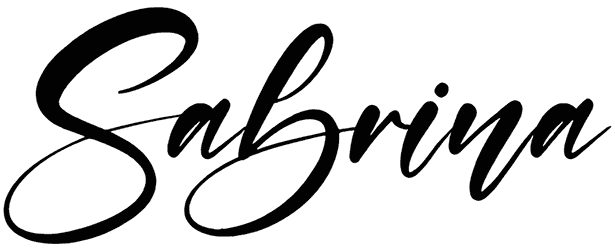
Sabrina Font
Let’s choose a stylish and romantic decoration for your design this time and win the hearts of your audience. This calligraphy font with soft and silky hand-lettering can help you make this kind of design. This A-Z handwritten font, named Sabrina, would be an ace choice for varied novel items from business cards to Instagram posts.